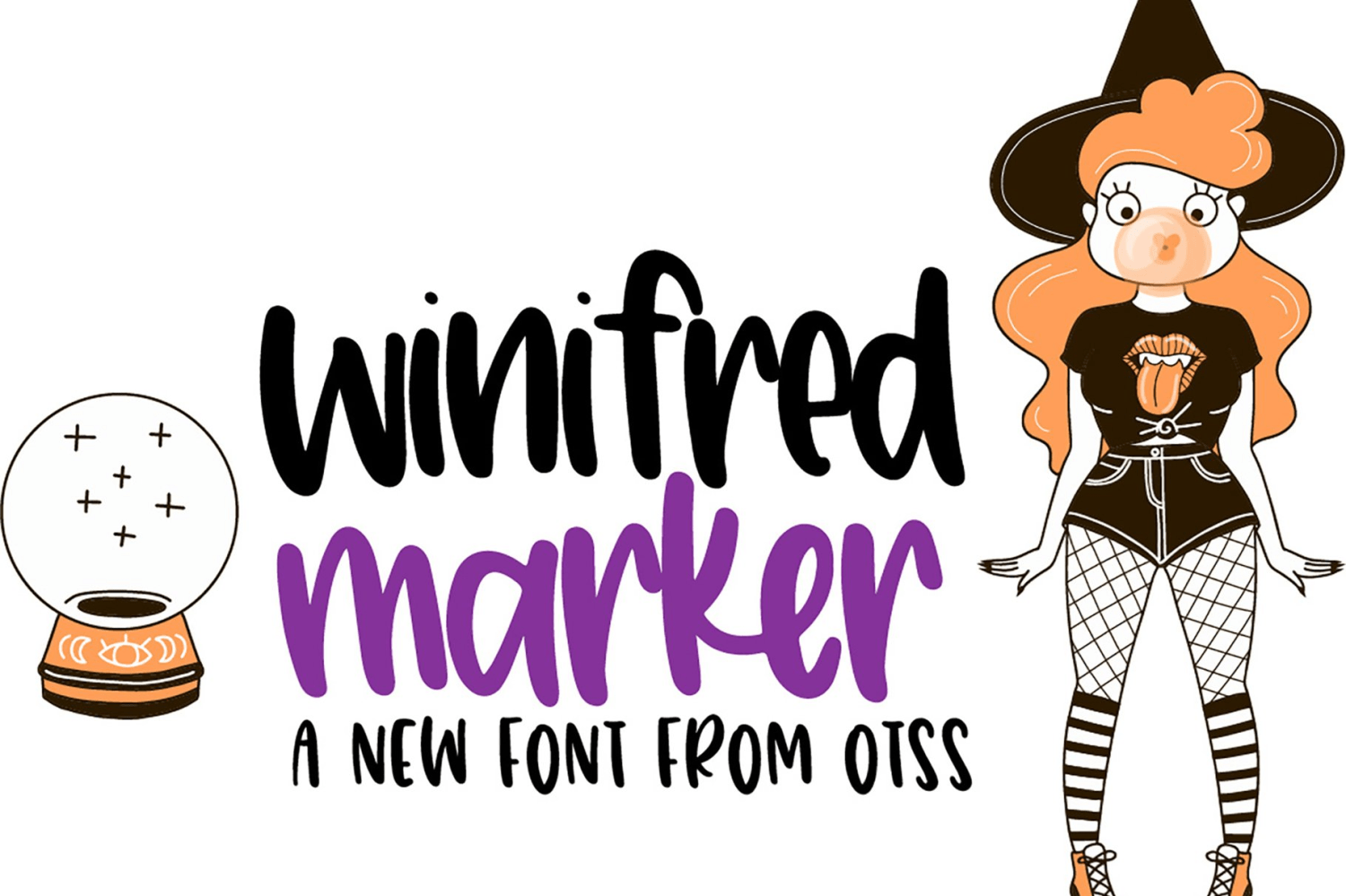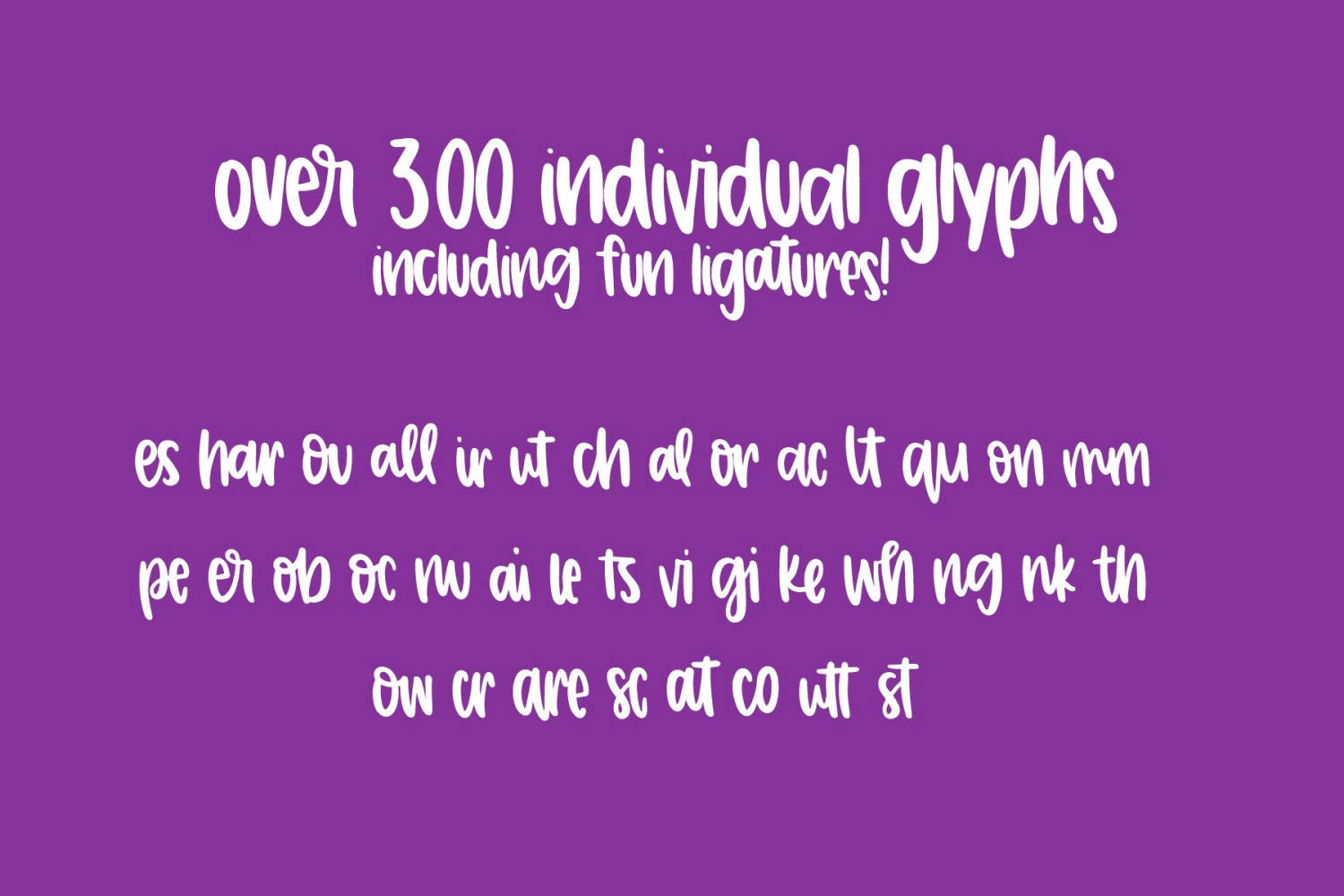
HomeFont BrosSans SerifWinifred Marker Sans SerifWacky Winifred Marker FacebookXPinterestWhatsApp 1 of 2 About Winifred Marker Welcome Winifred Marker! A bold and fun mixed font with some letters being connected while others stand alone. Over 300 glyphs to choose from in this font!  DOWNLOAD NOW People also explored Victory School Font Daniela Font Delicious Food Font Bithoy Script Font Honey Bee Font Mika Font Grostick Font Mithana Duo Font Cloudy Font 283 0 TagsWinifred Marker Font Previous articleDazzleNext articleNot Too Shabby LEAVE A REPLY Cancel reply Comment: Please enter your comment! Name:* Please enter your name here Email:* You have entered an incorrect email address! Please enter your email address here Website: Save my name, email, and website in this browser for the next time I comment. Personal Use Free Arc Personal Use Free Read more about this font Free Personal Use Free Read more about this font Girls Personal Use Free Read more about this font Vuldo Personal Use Free Read more about this font BLOG Free Fonts Risk: Why Free Fonts Can Be Dangerous for Designers Free Fonts Risk: Why Free Fonts Can Be Dangerous for Designers Using free fonts is a common practice in web and graphic design. However, the... Best Fonts for YouTube Videos: Make Your Thumbnails Stand Out Free vs Paid Fonts: Why Investing in Premium Fonts Is Worth It Using Fonts in Digital Marketing: Tips to Strengthen Your Brand Identity